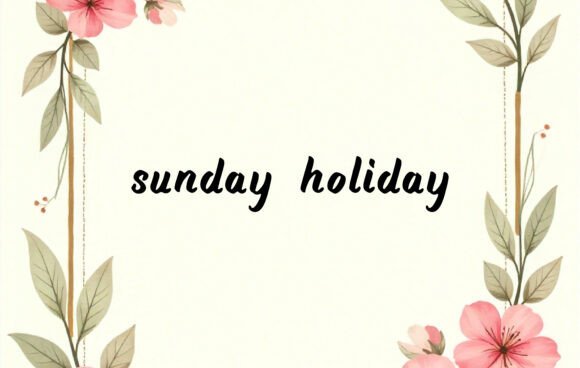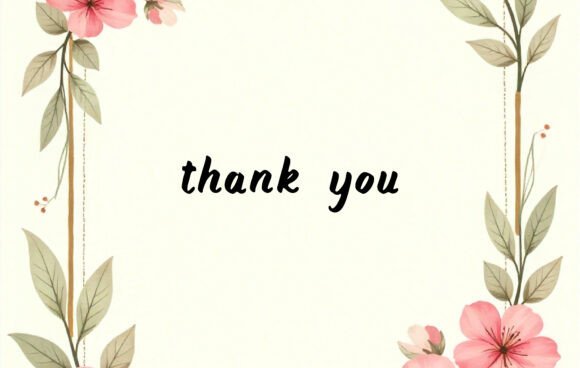
The Flute Font: A Beautiful, Modern Script to Elevate Your Designs
Have you ever been in the middle of a design project, and suddenly, you’re stuck on finding the perfect font? I recall a recent experience where I was working on a wedding invitation project, and my client specifically asked for a font that exuded elegance and romance. After scouring through numerous font libraries, I stumbled upon the Flute font, and it instantly captured my attention. In this article, I’ll share my journey with the Flute font, its features, and how you can make the most of it in your designs.
What I Love About Flute Font
The Flute font is a stunning, modern script that effortlessly blends sophistication with approachability. Here are some aspects that I absolutely love about it:
- ✨ Smooth curves and rhythmic strokes: The font’s fluid lines create a beautiful, hand-lettered feel that’s perfect for adding a touch of elegance to your designs.
- ✅ Versatility: Flute is an excellent choice for various design projects, from logos and wedding invitations to social media graphics and packaging.
- 💫 Polished yet personal: The font strikes a perfect balance between being refined and approachable, making it suitable for a wide range of aesthetics.
Honest Review: A Few Quirks to Consider
While the Flute font is exceptional, there are a few minor quirks to be aware of:
- 🤔 Limited use in body text: Due to its elegant, cursive nature, Flute might not be the best choice for lengthy body text. It’s better suited for headings, titles, or short paragraphs.
- ⚠️ Some glyphs may require manual adjustment: Depending on your design software, you might need to manually adjust certain glyphs to achieve the desired look.
The Story Behind Flute Font
Flute font was designed with the intention of capturing the elegance and romance of handwriting. The designer aimed to create a font that would be both refined and approachable, making it perfect for a wide range of design applications. Although the designer’s story is fictional, it’s clear that their goal was to craft a font that would bring a touch of sophistication and whimsy to any project.
- Q: Is Flute font suitable for body text?
- A: While Flute is an excellent choice for headings and titles, it might not be the best option for lengthy body text due to its elegant, cursive nature.
- Q: Does Flute font support OpenType features?
- A: Yes, Flute font supports OpenType features, including ligatures and stylistic alternates. This allows you to customize the font to suit your design needs.